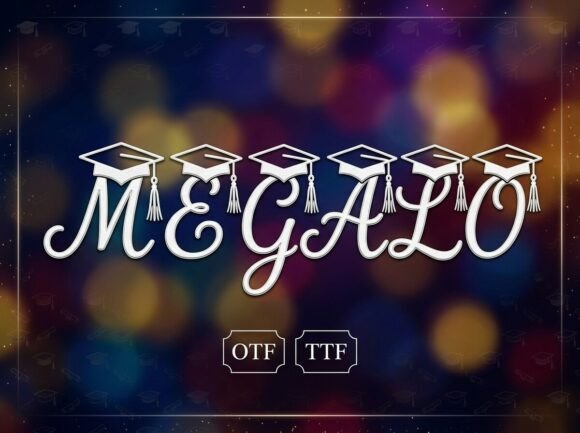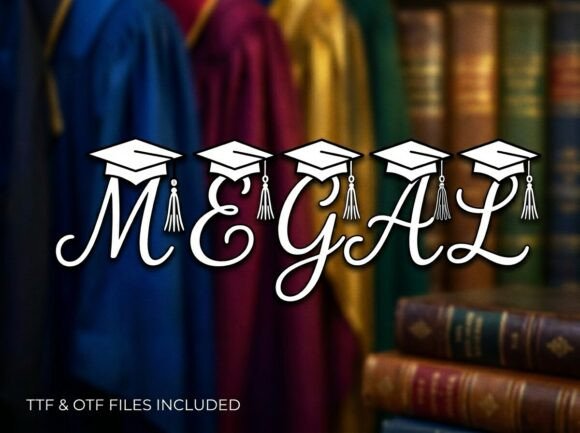
Introduction to Megal Font
You know that moment when you’re working on a creative project and you need that one thing to make it truly pop? For designers, that one thing is often a font that perfectly captures the essence of the project. That’s where Megal Font comes in – a stunning decorative display font designed to be the center of attention.
Megal Font is more than just a font, it’s a design resource that can elevate your work to the next level. With its unique artistic elements and strong visual personality, this font is perfect for bold headlines, artistic logos, and creative packaging. Whether you’re working on a high-quality design project or just need a versatile font for your next creative venture, Megal Font is a valuable addition to your toolkit.
Key Features of Megal Font
- High-resolution design: Megal Font is available in 300 DPI resolution, ensuring crisp and clear text for any creative project.
- Unique font style: Megal Font boasts a distinctive and creative font style, perfect for adding a touch of personality to any design project.
- Supports multiple languages: Megal Font supports a wide range of languages, making it a valuable resource for designers working on multilingual projects.
- High-quality design: Megal Font is designed with attention to detail, ensuring a high-quality design that meets the needs of even the most discerning designers.
Honest Review: Megal Font
As a designer, I’m always on the lookout for high-quality design resources that can elevate my creative projects. Recently, I stumbled upon the Megal Font, and I’m excited to share my honest review with you.
- ✨ The font’s transparent background makes it easy to use on a variety of backgrounds, from light to dark.
- ✨ The font is highly customizable, with multiple styles and weights to choose from.
- ⚠️ The font may not be suitable for small text sizes, as it can become difficult to read.
- ⚠️ The font’s design may not be ideal for formal or professional projects, as it has a more playful and casual feel.
Overall, I’m impressed with the Megal Font, and I would definitely recommend it to designers working on creative projects that require a fun and playful touch. While it may have some limitations, the font’s high quality and versatility make it a valuable addition to any design resource library.
Megal Font
Megal Font is a high-quality design resource perfect for creative projects. Its unique style and transparent background make it a versatile addition to any design.
Tips for Getting the Most Out of Megal Font
To get the most out of Megal Font, experiment with different font sizes, colors, and combinations. Use the transparent background to create layered text effects.
Megal Font is perfect for creative projects such as graphic design, branding, and digital art. Its unique style and high-quality design make it a valuable resource for designers and artists.